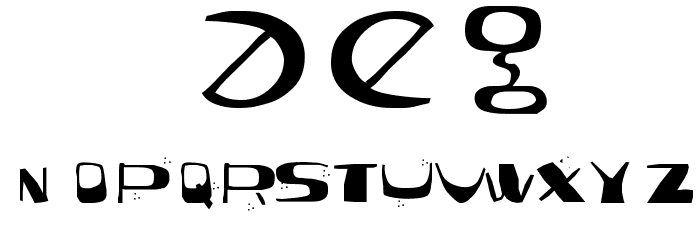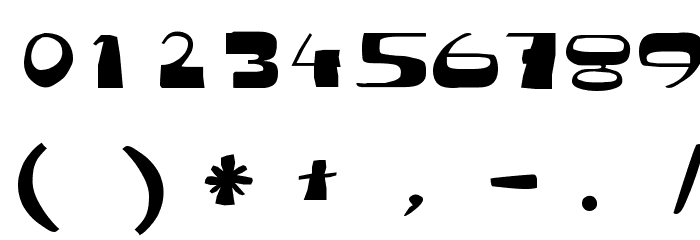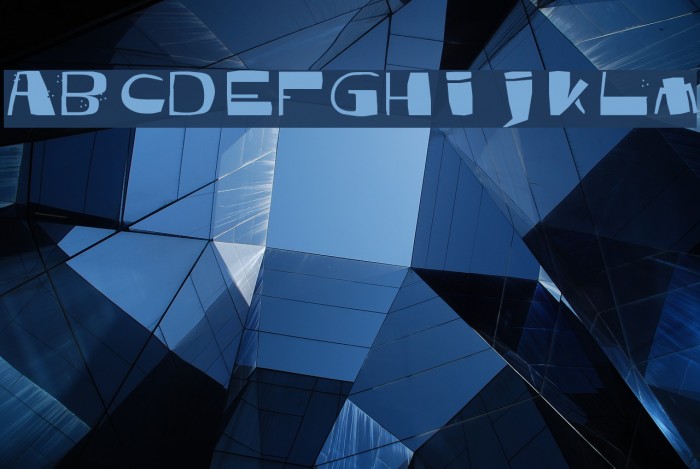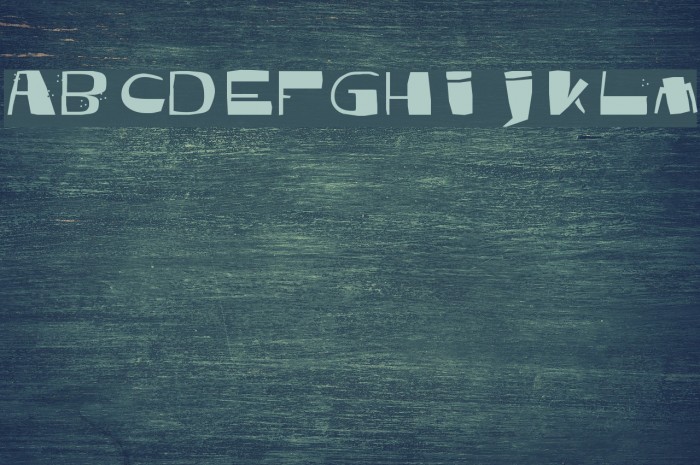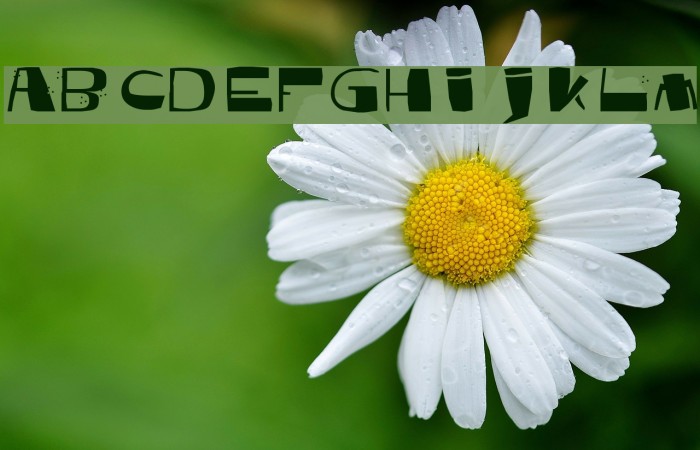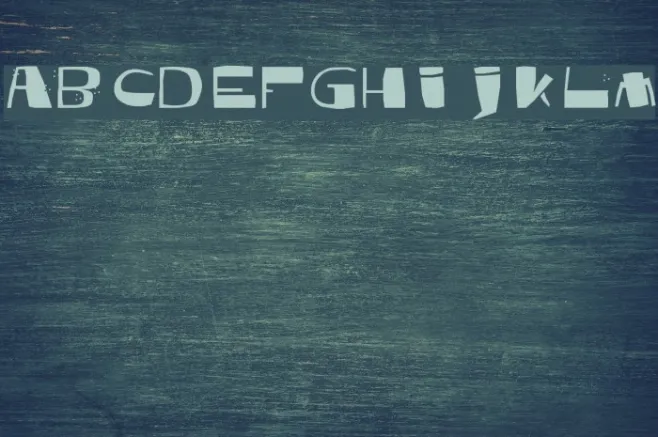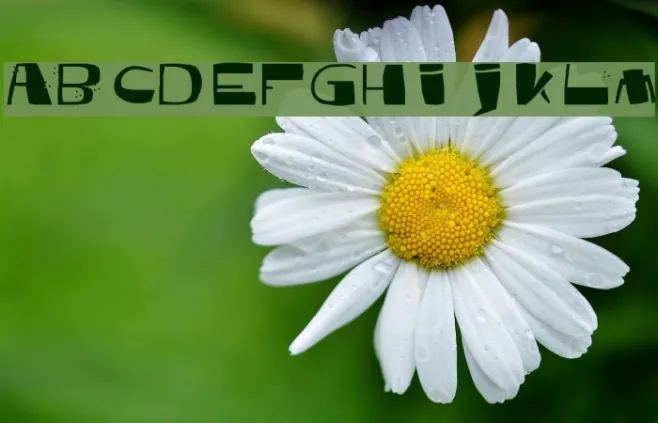
Superbal Font
This font features a unique and artistic style with irregular shapes and varying stroke thicknesses. The characters appear to have a distressed or grunge effect, giving them a modern and edgy look. The uppercase letters are bold and dynamic, with some characters having exaggerated curves and angles. The lowercase letters maintain a similar style, with a playful and unconventional appearance. Numbers and special characters follow the same design principles, adding to the overall cohesive aesthetic. This font is ideal for projects that require a bold statement and a creative touch.
A bold, artistic font with a distressed, modern look.
- Proposed Projects: Ideal for album covers, posters, branding, and any creative projects that require a distinctive and edgy typeface.
- Overall Style: Modern, Edgy